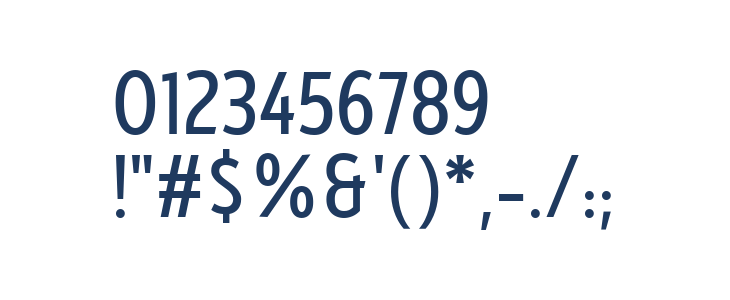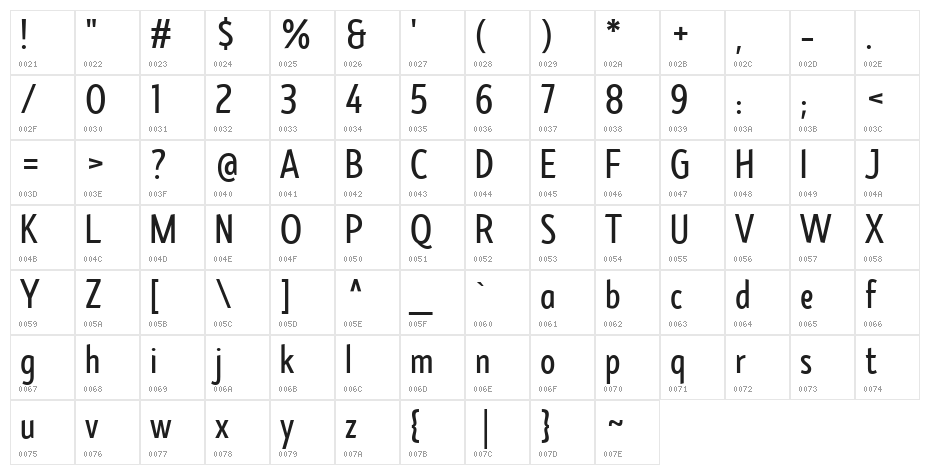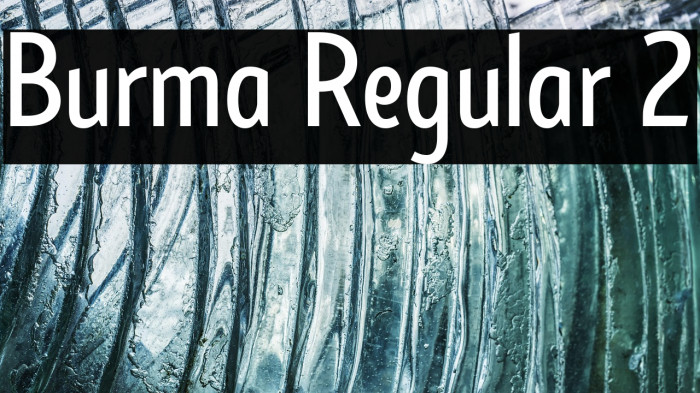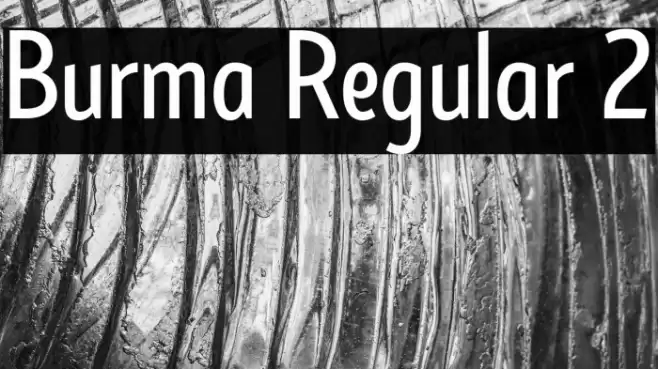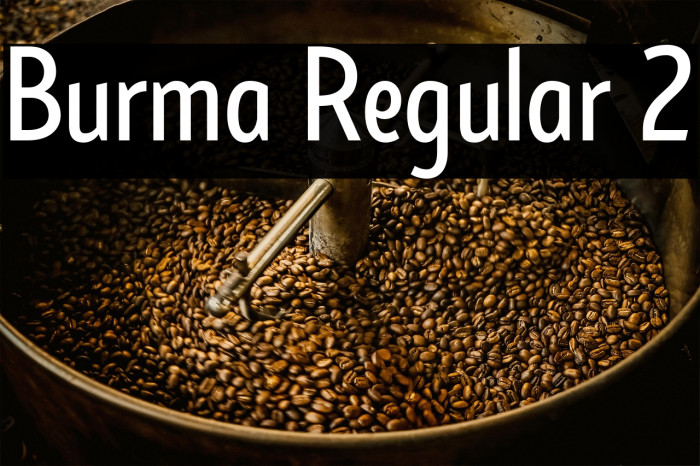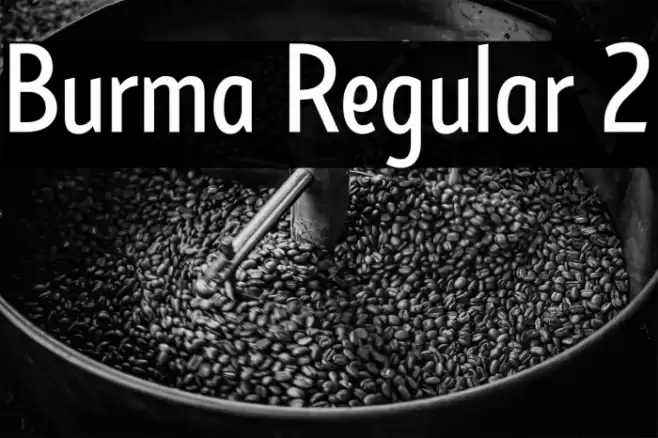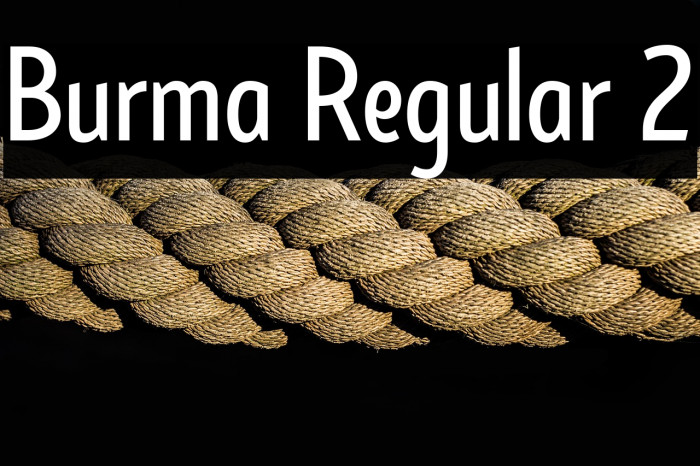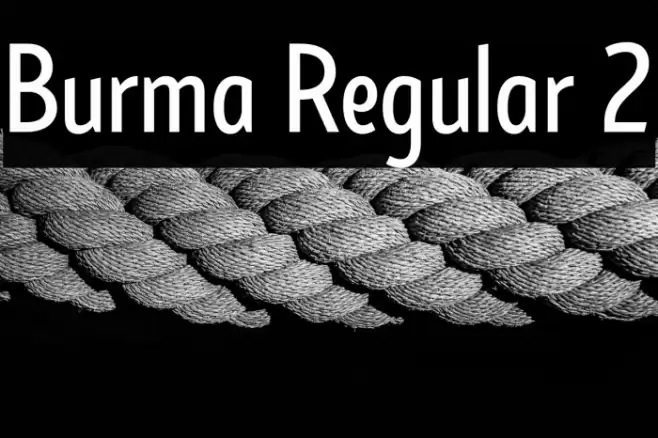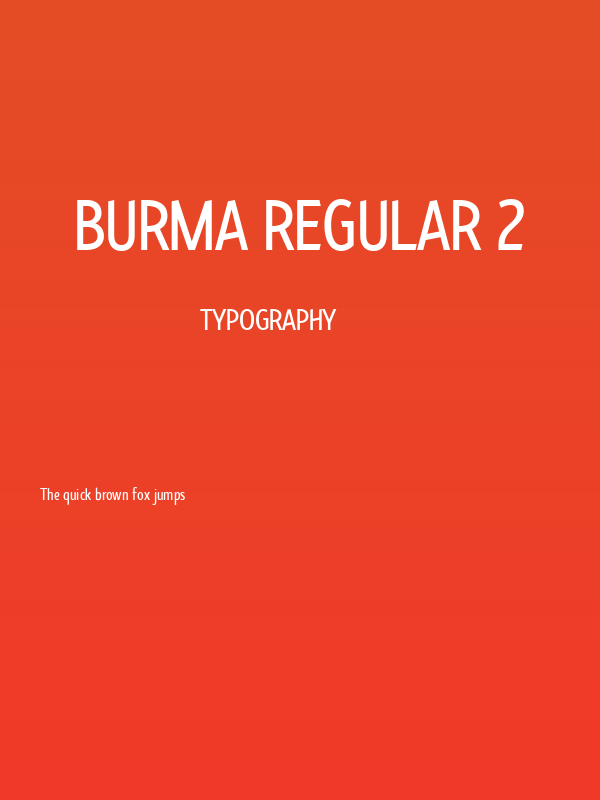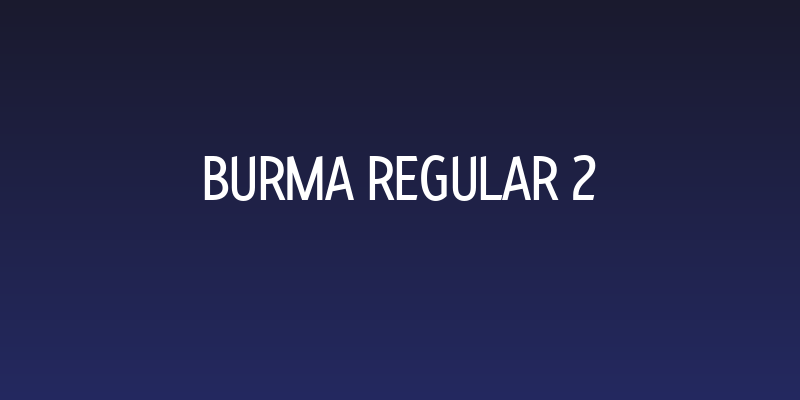
Burma Regular 2 Font
Burma Regular 2 Description
This font features a clean and modern sans-serif design with a uniform stroke width that provides a balanced and professional appearance. The characters are well-proportioned, offering excellent readability across both uppercase and lowercase letters. The numerals are distinct and clear, making them suitable for various applications. Special characters are included, maintaining the font's cohesive style. The overall aesthetic is versatile, making it suitable for both digital and print media.
| Proposed Projects | Ideal for corporate branding, user interfaces, signage, and editorial design. |